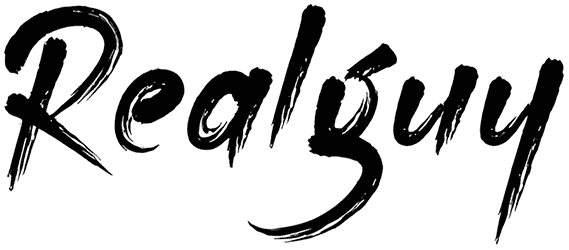
Realguy Font
Realguy is a marvelous typeface that comes with elongated and crooked characters, thus, it can be classified as a script font. If you want to add a sense of personalization, coolness, fun, and dynamism to your artwork, never underestimate the true ability of this brush font. As the last word, it looks great on logos, business cards, billboards, personal blogs, and magazines.